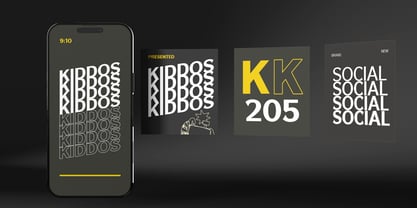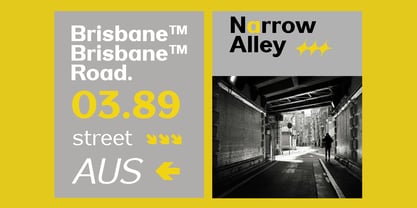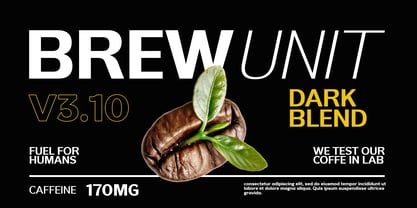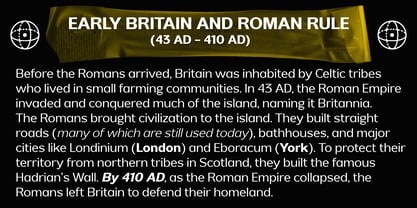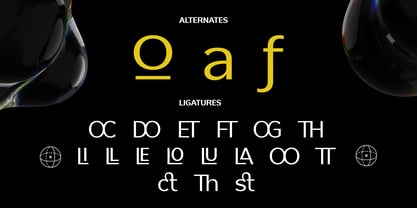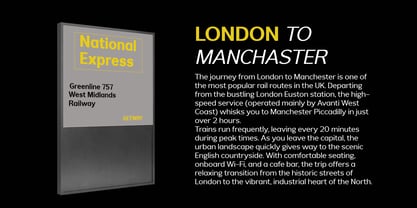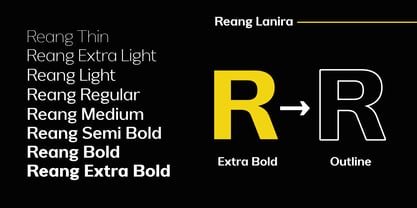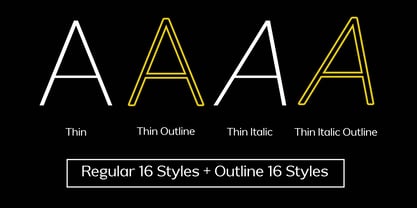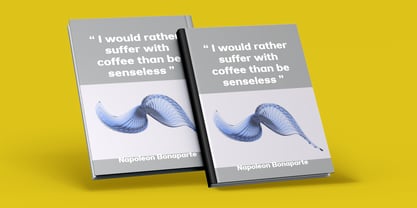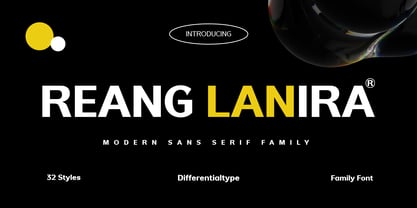
Reang Lanira
by Differentialtype
The Reang Lanira Font Family was designed by Sidik Sidik and published by Differentialtype. Reang Lanira contains 32 styles and family package options.
Reang Lanira is more than just a typical sans-serif font; it is a contemporary typographic collection engineered for visual excellence and maximum functionality. With a vast range of 32 styles—from the elegant Thin to the assertive Extra Bold—you have the power to convey every message with the perfect nuance. Each weight comes complete with a unique Outline version, lending artistic dimension and depth to your designs. Furthermore, the stylish Italic versions add a touch of dynamism and sophistication, making them perfect for classy emphasis. This comprehensive collection ensures you will never run out of options, ready to be integrated into any project, whether it’s for clean user interfaces, premium product packaging, or engaging infographics. The flexibility of Reang Lanira makes it an indispensable asset for designers and content creators. It is suitable for a multitude of needs, ranging from typing documents that require high legibility, creating strong brand identity (branding), designing modern and impactful logos, generating punchy news headlines, to marketing materials like event posters, digital advertisements, and responsive web designs. Moreover, it is perfectly suited for product labels, book covers, video graphics, and professional corporate presentations. With its ease of use and contemporary aesthetic, Reang Lanira is an investment that will elevate the quality and professionalism of every design you create.